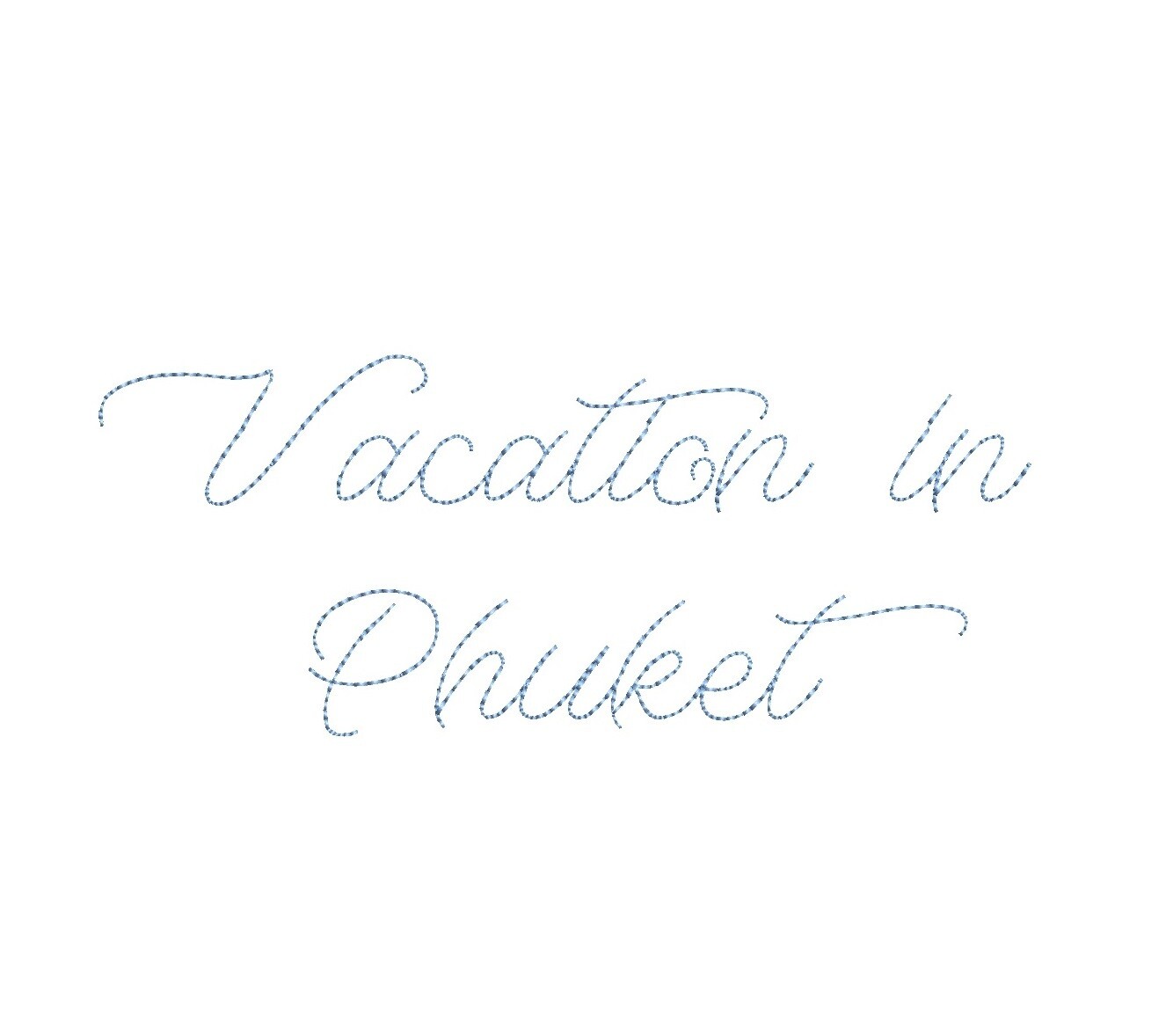
Embark on a delightful journey with Vacations in Phuket Bean Stitch ESA font, a captivating embroidery design perfect for your creative projects. Seamlessly compatible with Wilcom Studio e4.5.6 and Hatch 3 versions and beyond, this font ensures impeccable stitch precision and intricate detailing. Let your embroidery come alive with the mesmerizing bean stitch pattern, adding a touch of exotic charm to any textile masterpiece, from souvenirs to intricate designs. Unlock a world of creative possibilities with this versatile font. Optimized for SEO, it guarantees both visual brilliance and search engine prominence. Don't miss this exceptional embroidery asset to inspire your craft today!